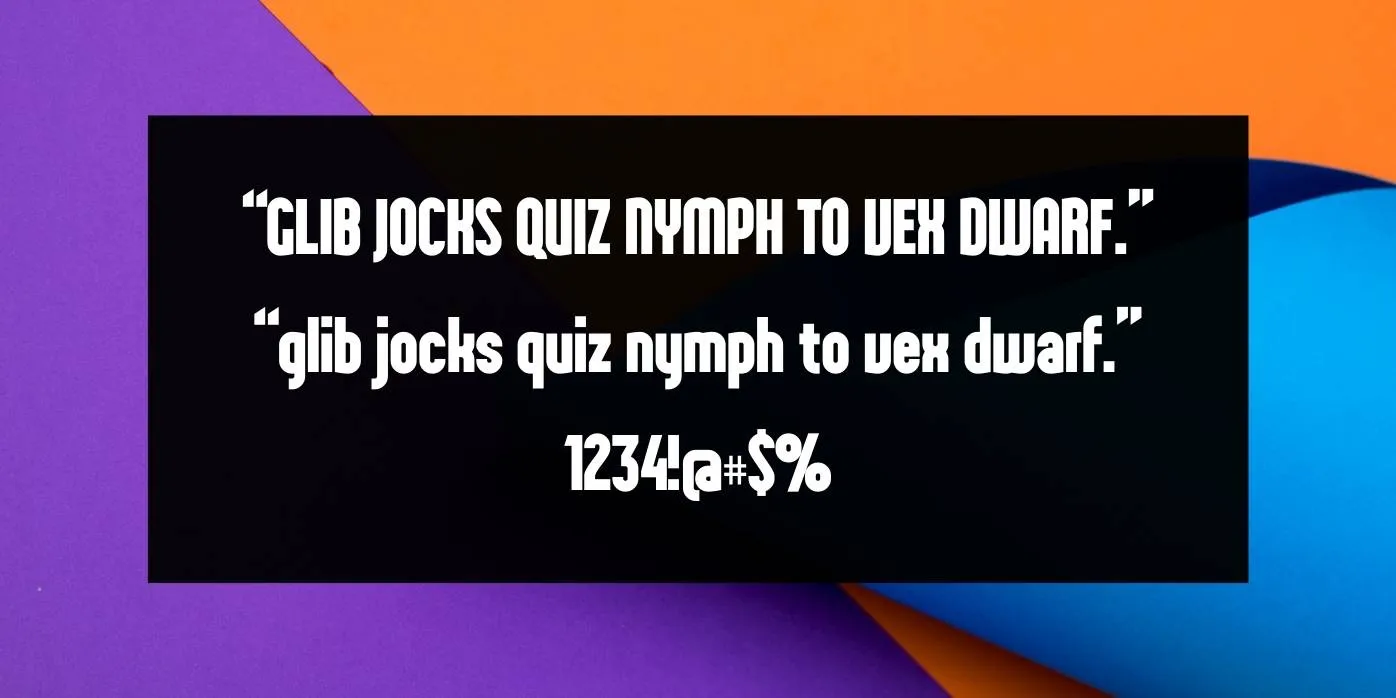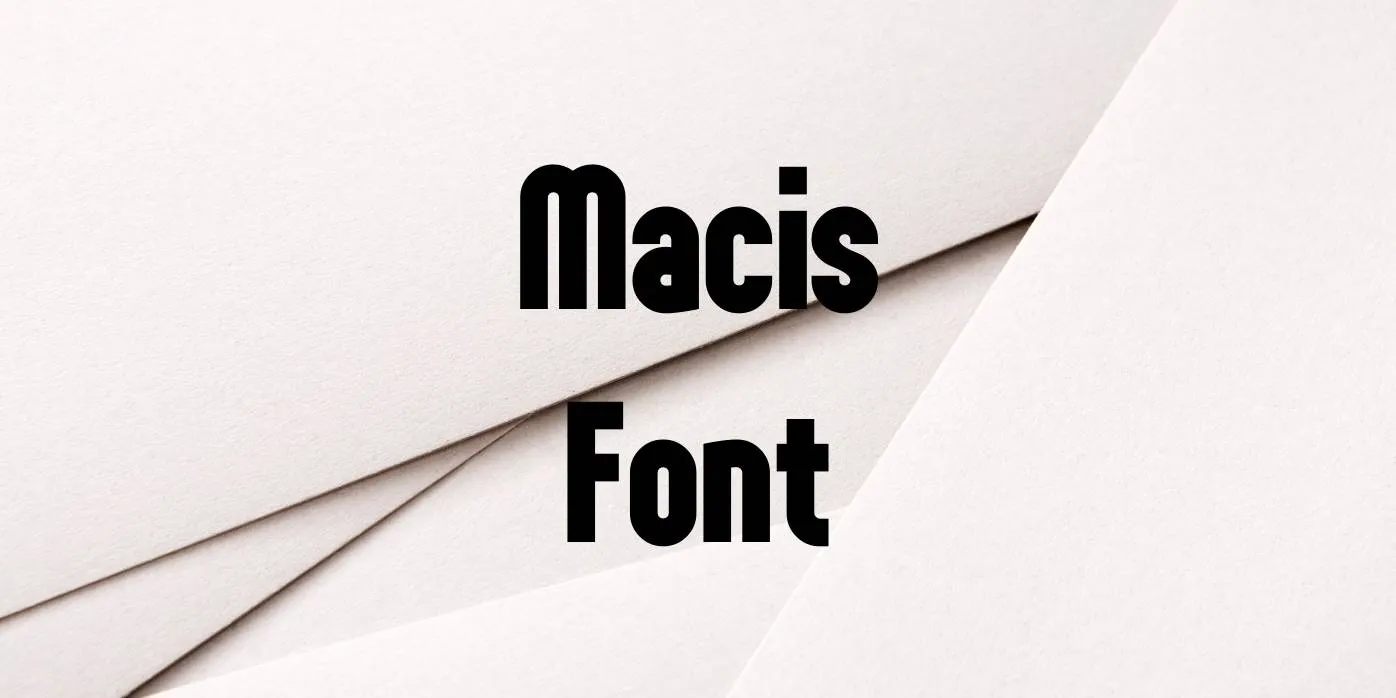
Macis Font
Macis Font is a typeface that was designed in the early 1990s by Swiss typeface designer Max Miedinger. The name Macis comes from the Greek word for poppy, which is also the flower that is depicted on the typeface’s ampersand. This Font has a unique design that makes it stand out from other typefaces. The most notable features of this font are its curved strokes and circular shapes.
These features give this font a playful and friendly appearance. This font is a great choice for headlines, logos, and other design projects that need a touch of personality. The generator tool will help you create a unique and customized font for your website or blog. You can use this tool to create a wide variety of fonts, from simple to complex, and from Serif to Sans-Serif.